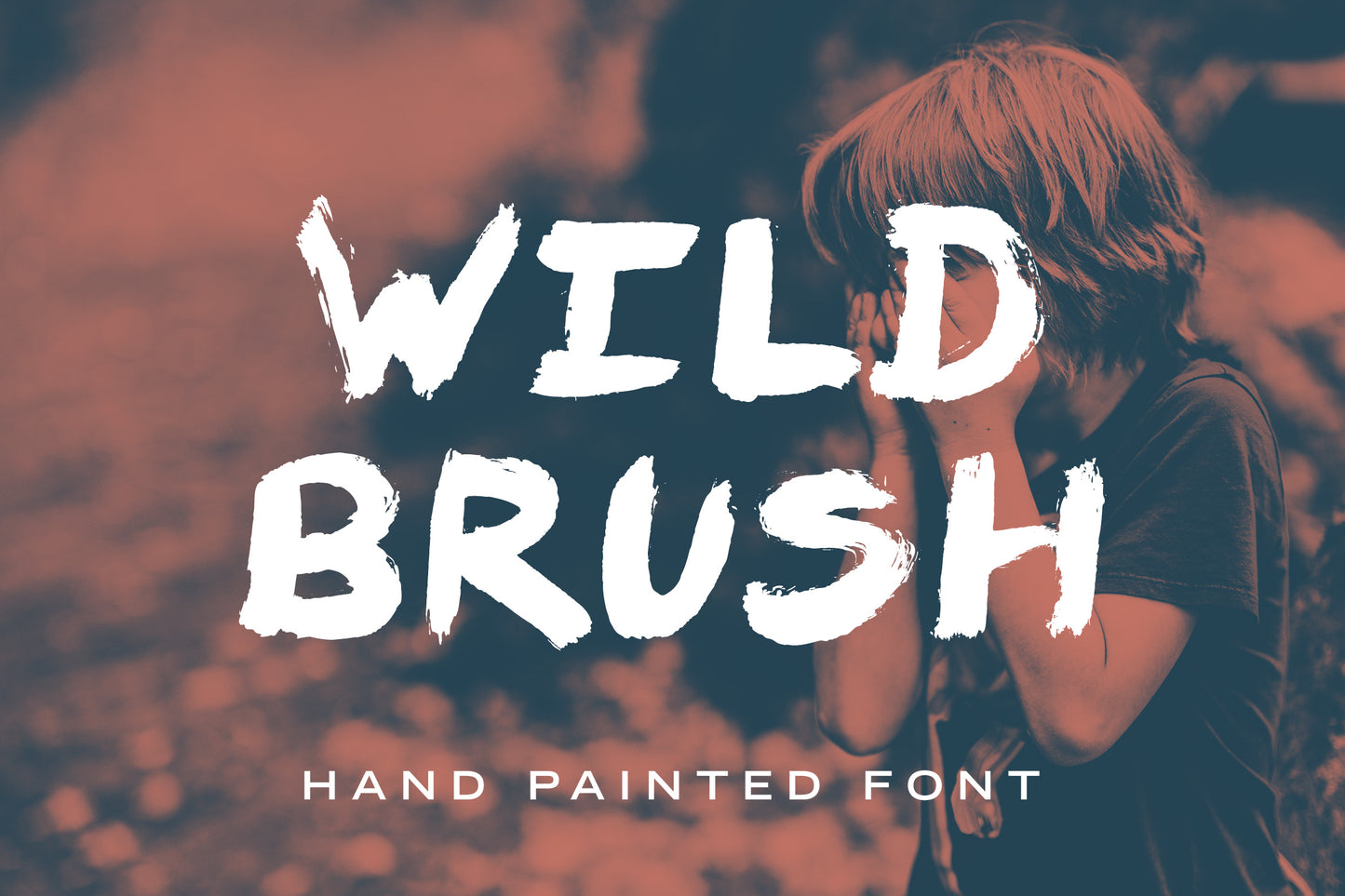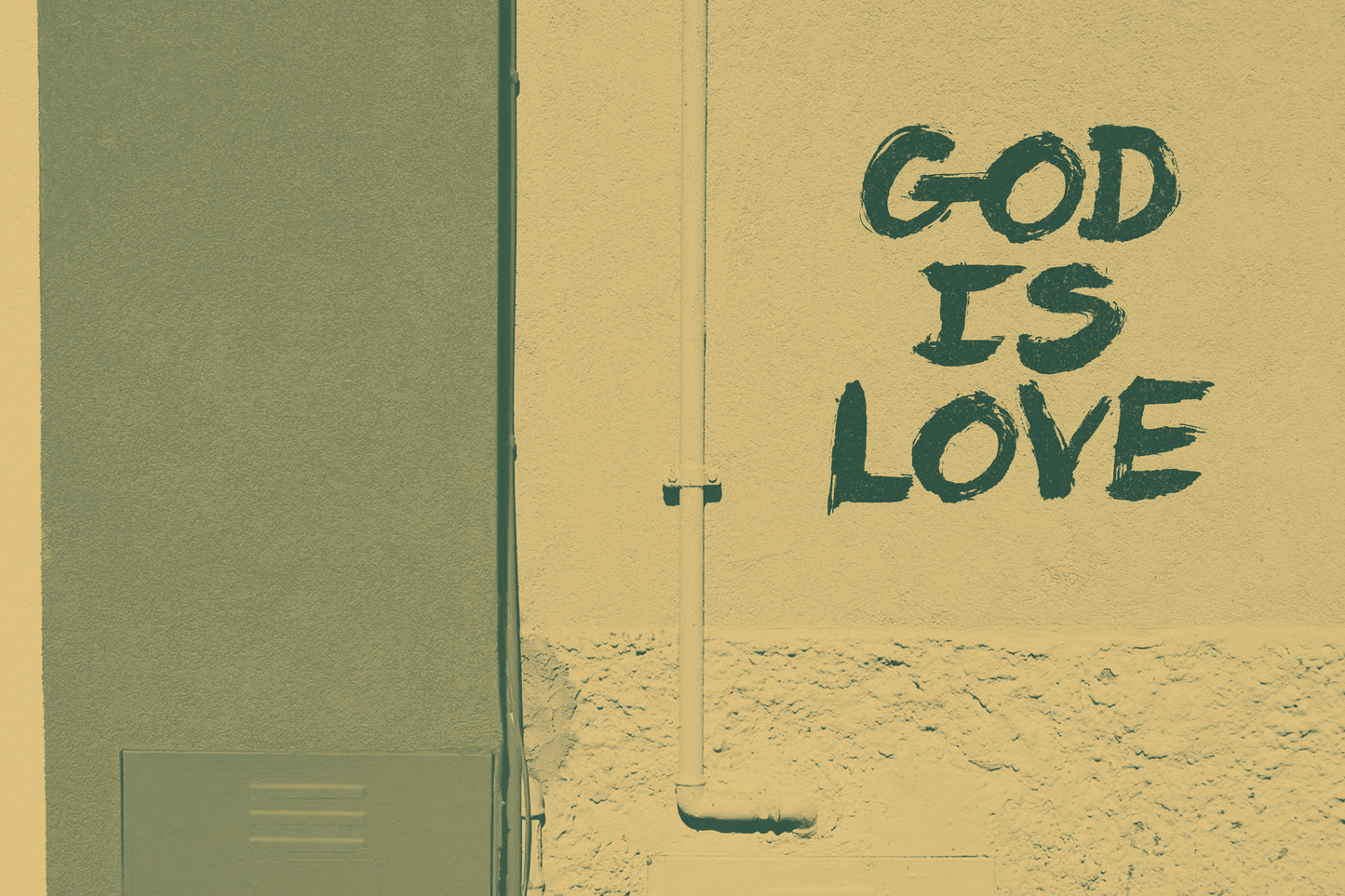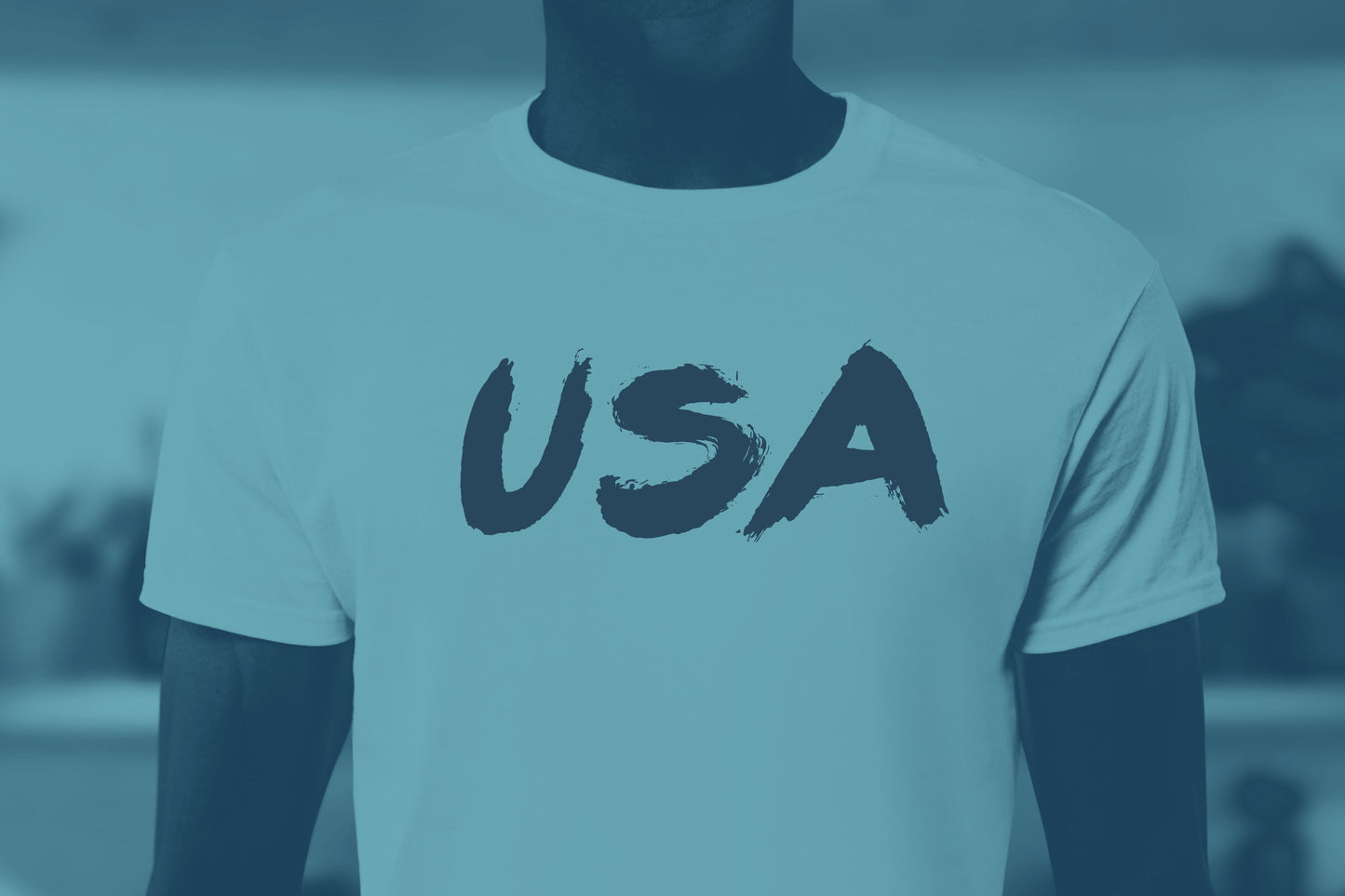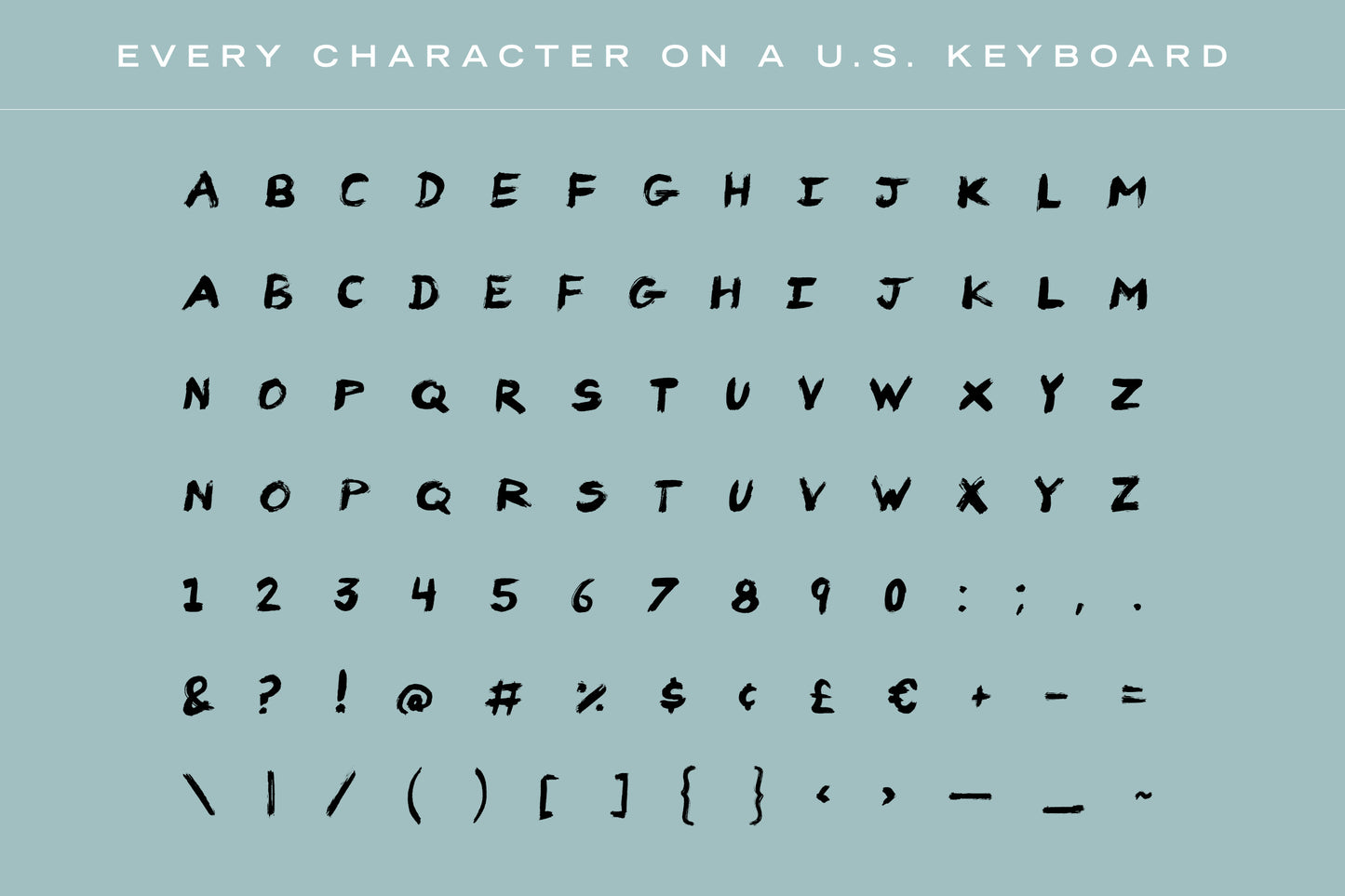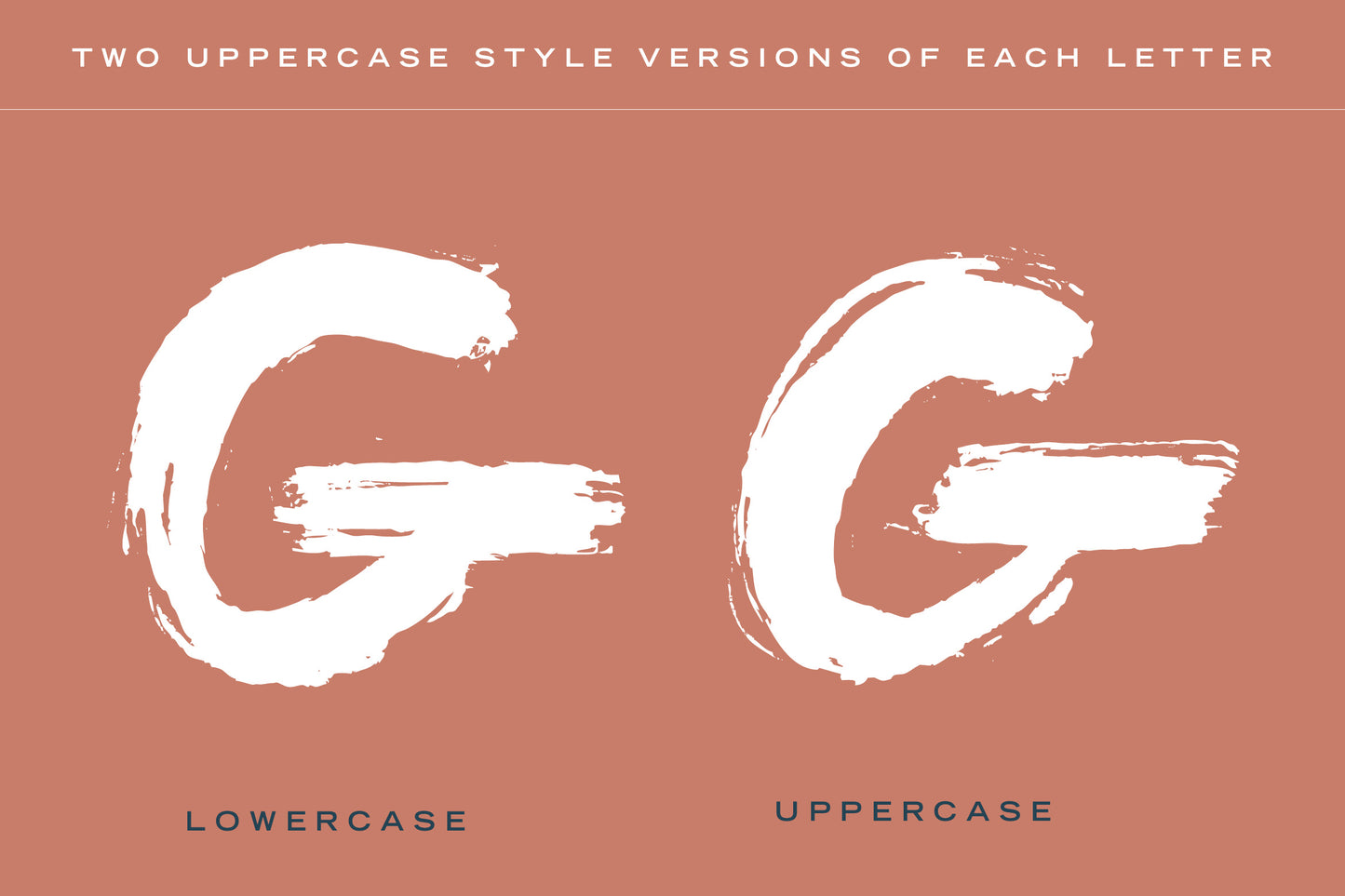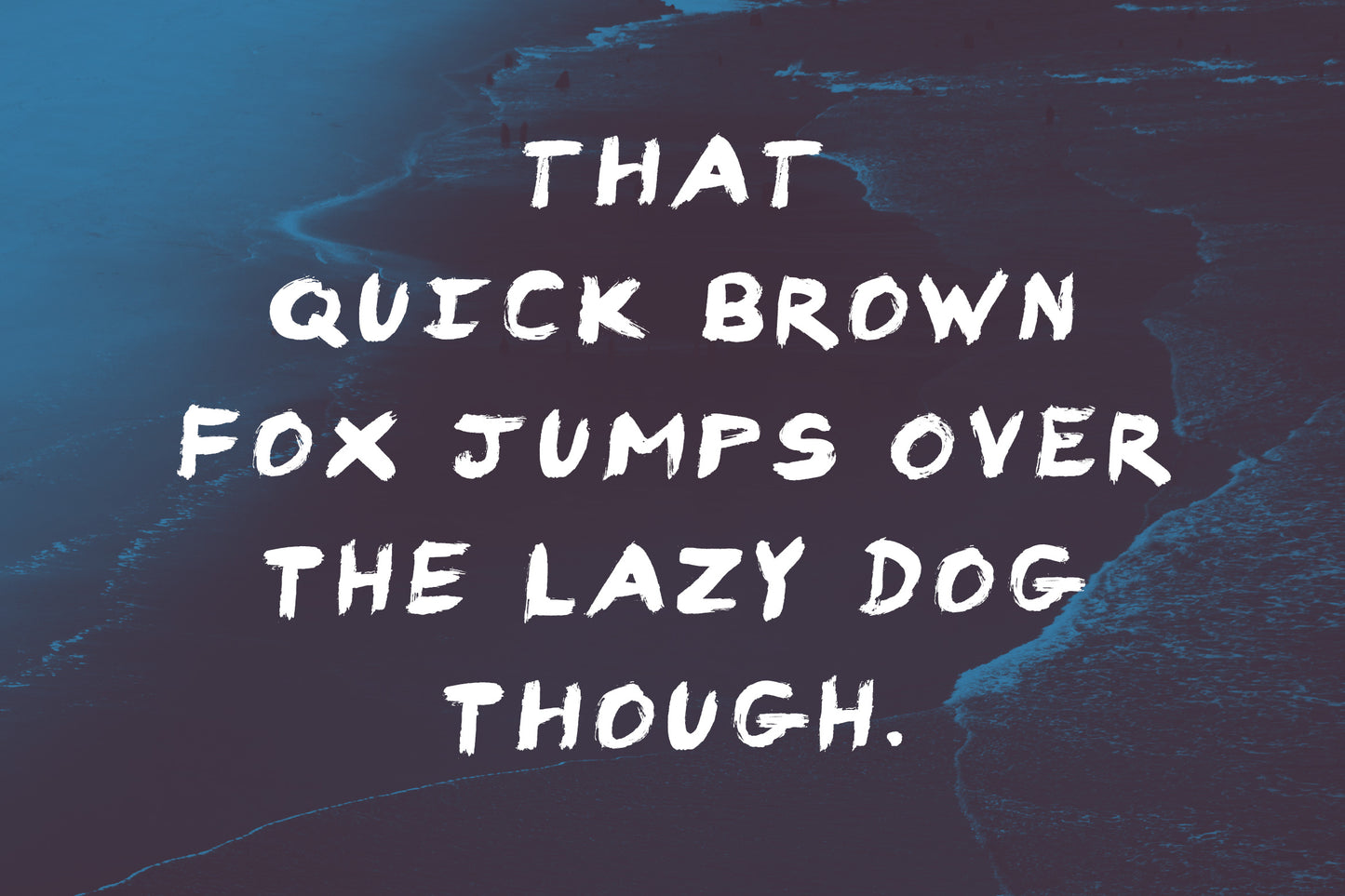
Wild Brush Font
Wild brush font delivers a free-spirited and passionate hand-crafted flair. With it's dramatic and bold hand-painted creation process fully evident in the finish product, this brush makes no effort to hide it's hand-brushed origins.
Often times, the downside of using a hand-brushed font can be the obvious repetition of characters. With two versions of each letter included, avoiding duplicate letters in short headlines and logos just got that much easier! This is achieved by using the lowercase letters on the keyboard and the uppercase letters as both as uppercase.
Every single character on a U.S. keyboard is included (plus the British Pound symbol, the Euro symbol, and the U.S. cent symbol, and the em dash character.) 73 characters total included.